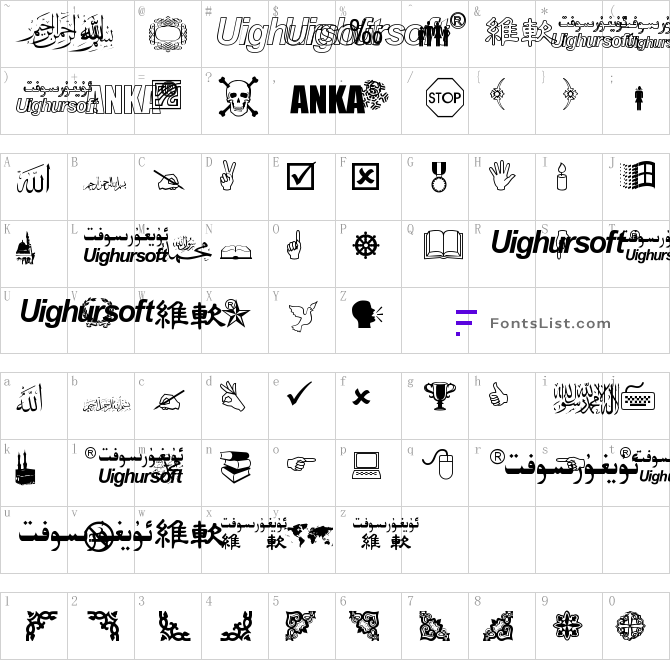
ALKATIP-Marka.ttf is a very beautiful artistic font, ALKATIP-Marka.ttf is widely used in the design and printing of various books and pictures,ALKATIP-Marka.ttf has a strong visual impact,ALKATIP-Marka.ttf is a commonly used font in newspapers, magazines and books, and is used in posters, e-commerce Poster design, store design, logo design, font design and other fields.ALKATIP-Marka.